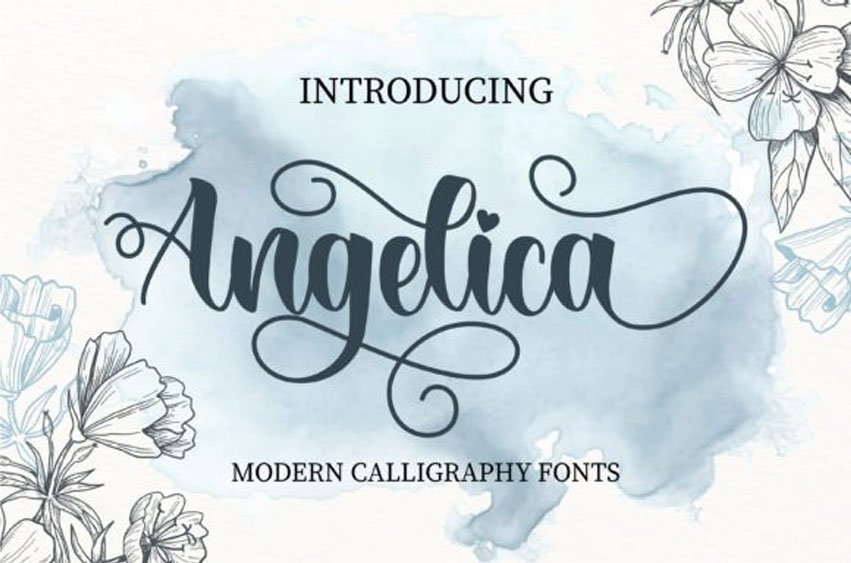
Angelica Calligraphy Font is a delicate handwritten font carefully crafted for a cool and unique design.
This font can be used to write letters, invitations, food products, titles, and any project that requires handwritten taste.